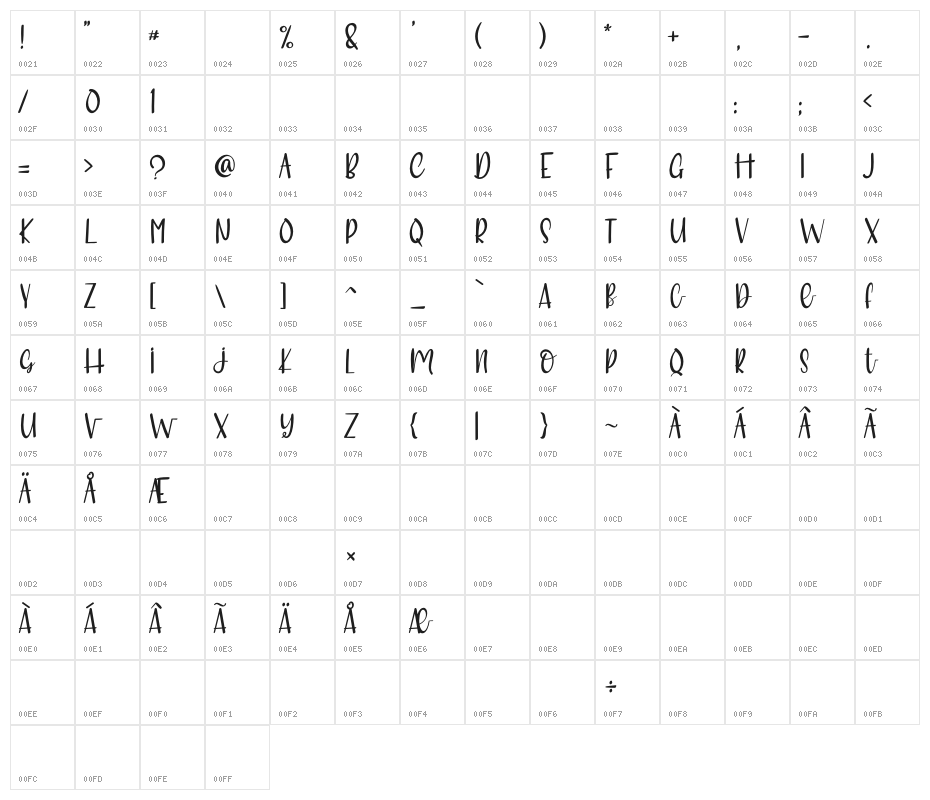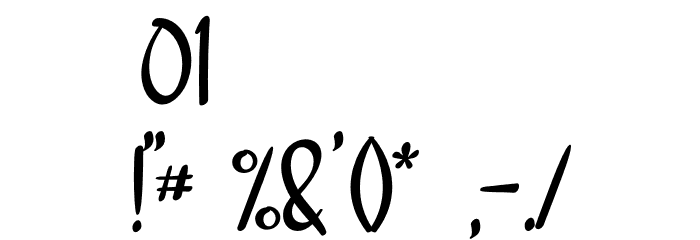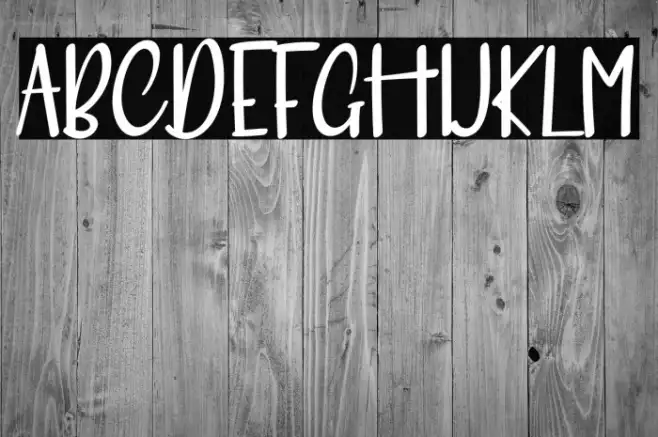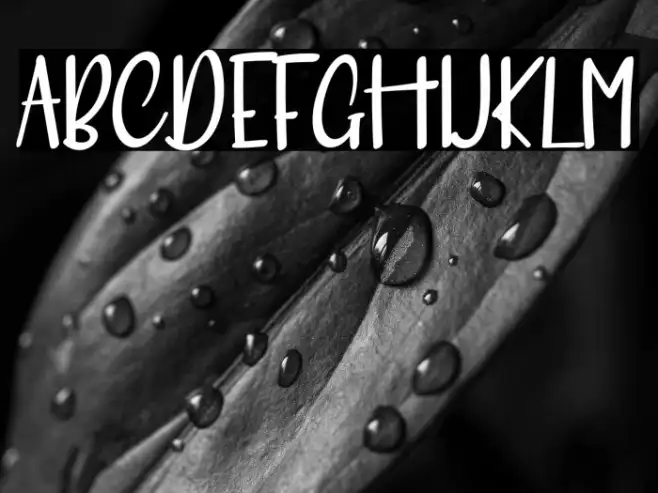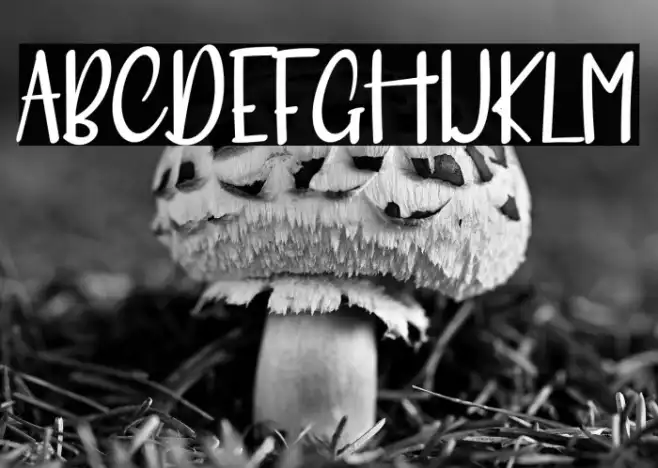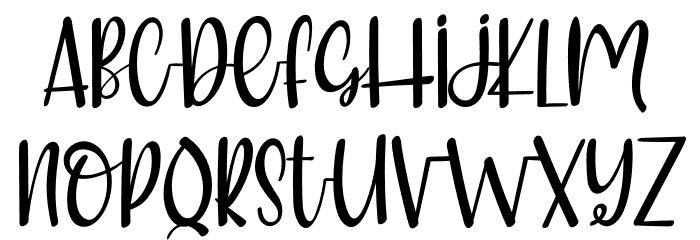
MeRitORiousLy Font
MeRitORiousLy Description
This font features a playful and energetic script style with a handwritten appearance. The letters are characterized by their tall, narrow forms and slightly irregular strokes, giving them a lively and informal feel. The uppercase letters maintain a consistent height, while the lowercase letters exhibit a charming variation in size and shape. The strokes are smooth and fluid, with a moderate thickness that adds to the font's legibility. The numbers and special characters are designed to match the whimsical style of the alphabet, making this font suitable for creative and casual applications.
| Proposed Projects | Ideal for greeting cards, invitations, playful branding, and social media graphics. |